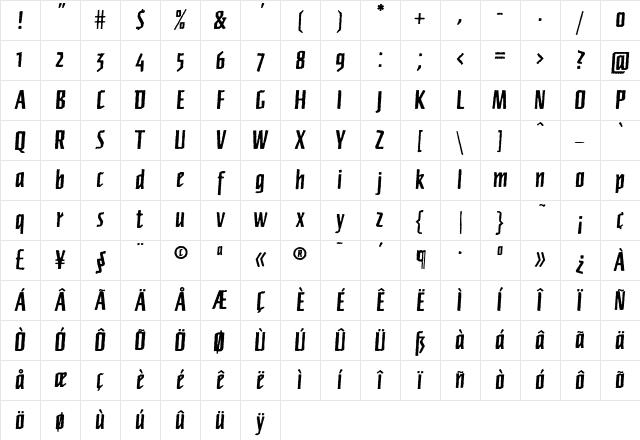
FFNewberlinBoldRough Regular
Design Context for FFNewberlinBoldRough
FFNewberlinBoldRough embraces imperfection - its rough, textured character adds raw authenticity to designs that want to feel lived-in and unconventional.
Pro Tip: Use FFNewberlinBoldRough at larger sizes where the texture and irregularity of each letterform can be clearly seen - it loses its character at small sizes.